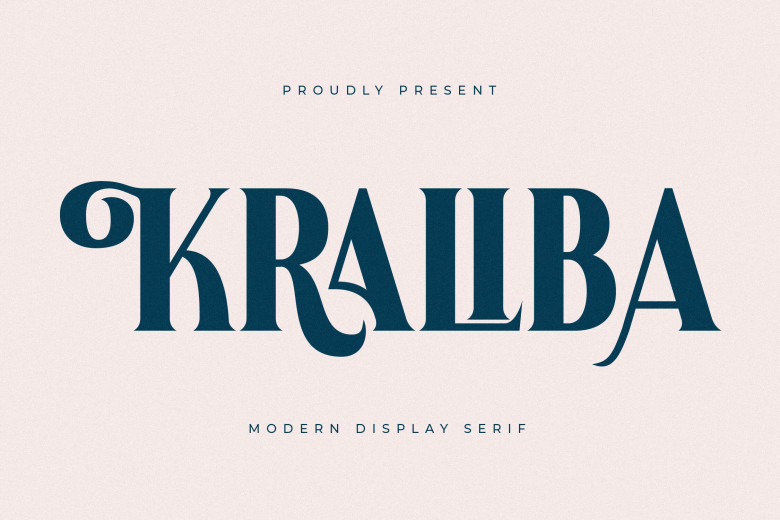
Kraliba Font
Kraliba is an elegant display serif font perfect for use in logos, branding projects and homeware designs, packaging of products such as mugs, posters quotes bags for shopping t-shirts, book covers, name cards, greeting cards, invitation cards, labels, photographs, watermarks, special events as well as any other luxurious projects that require serifs.
Kraliba Serif Font